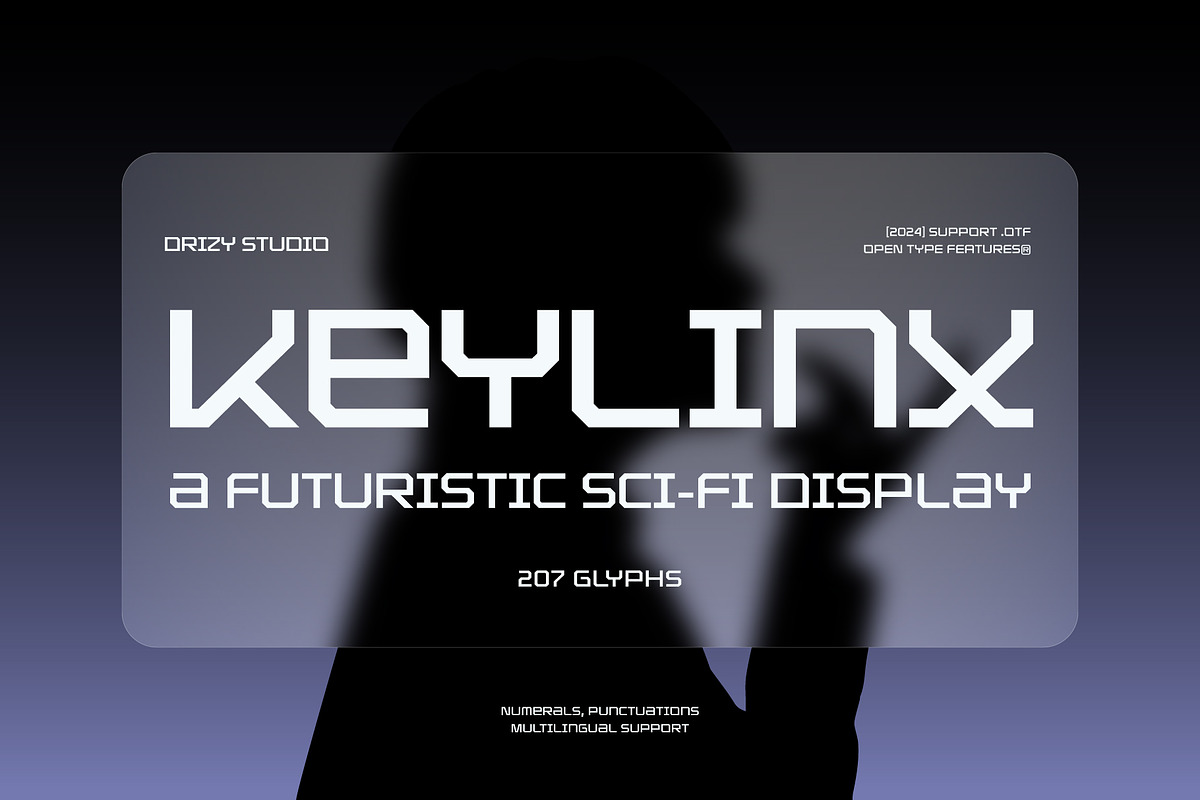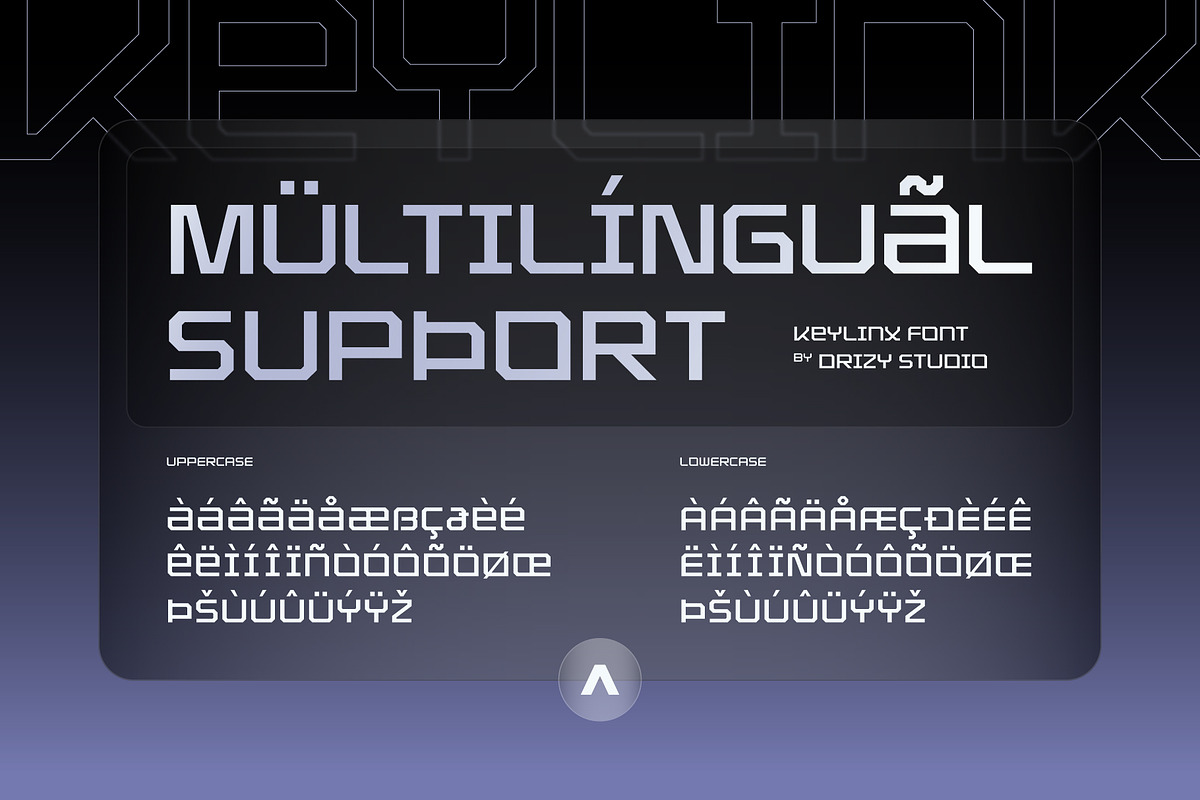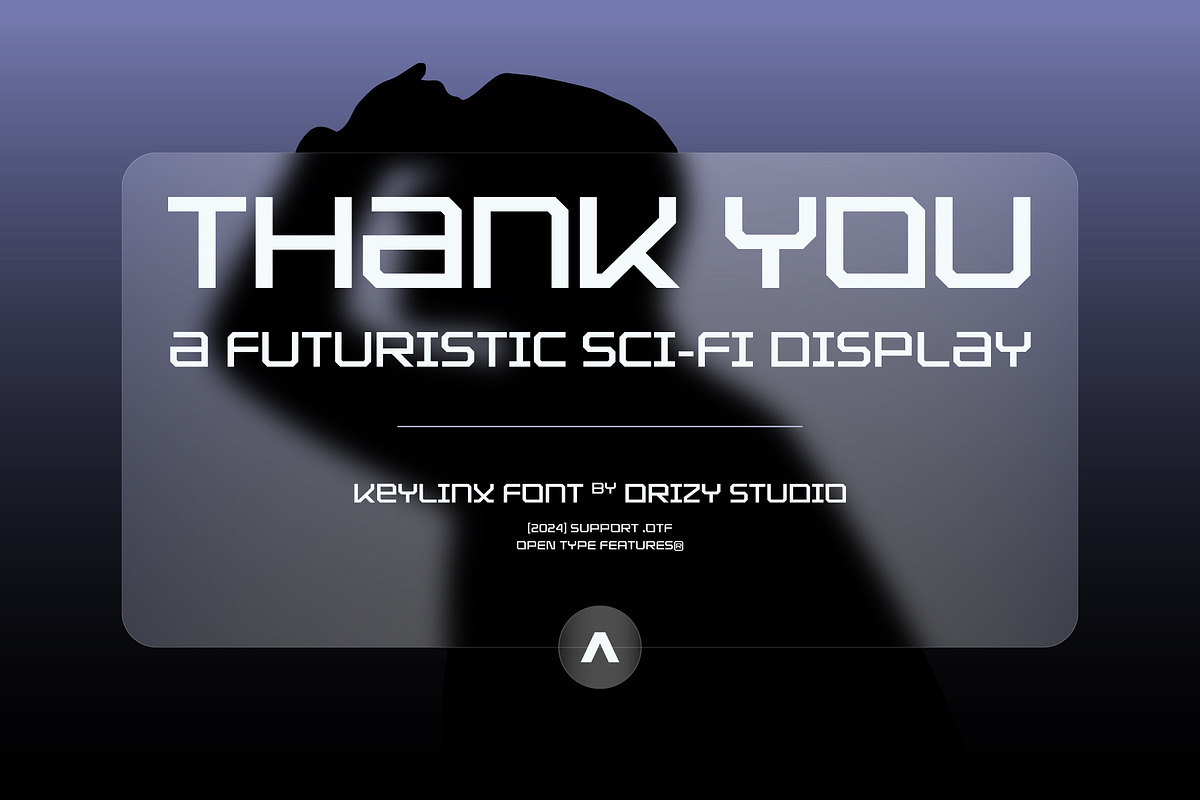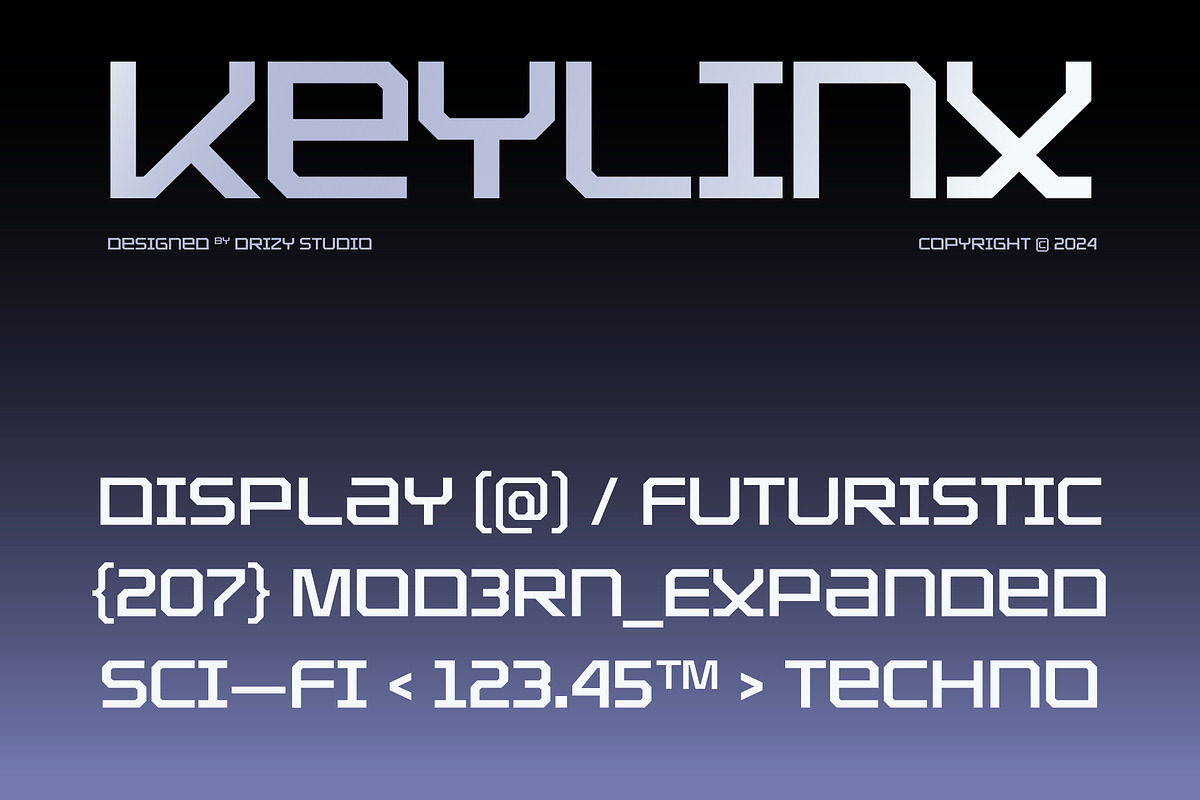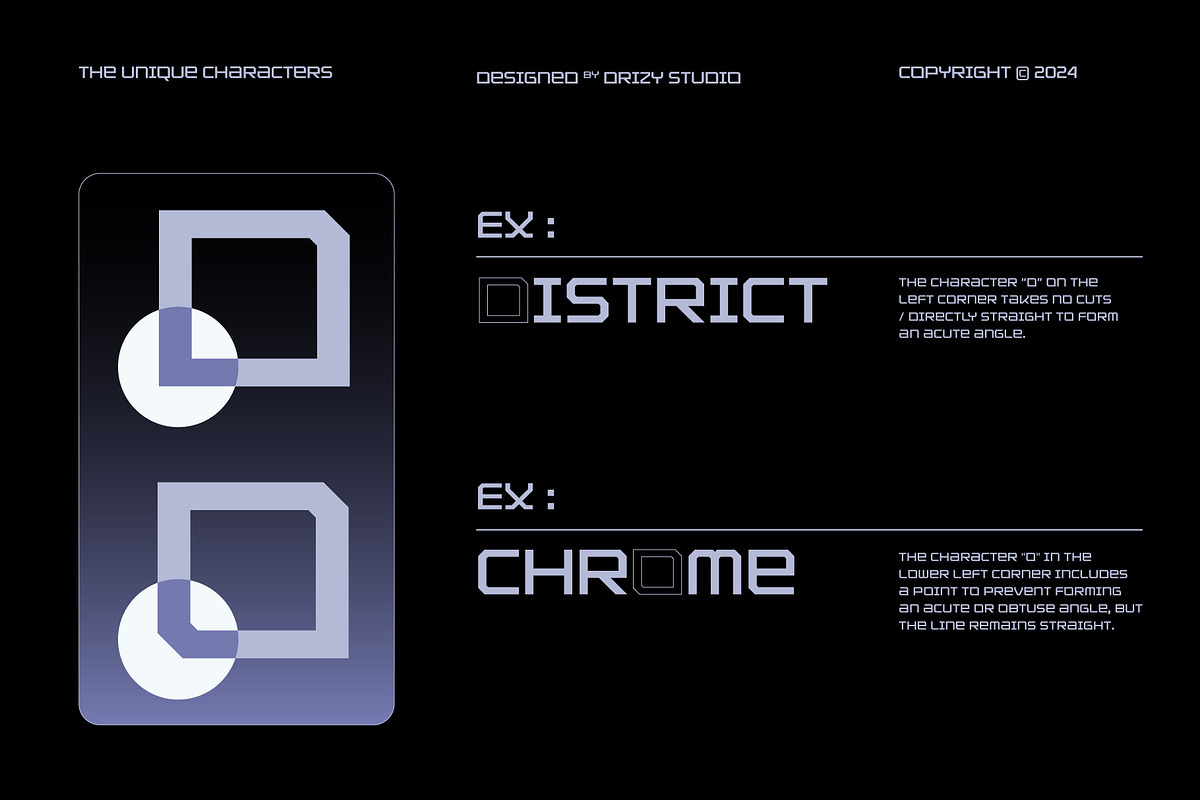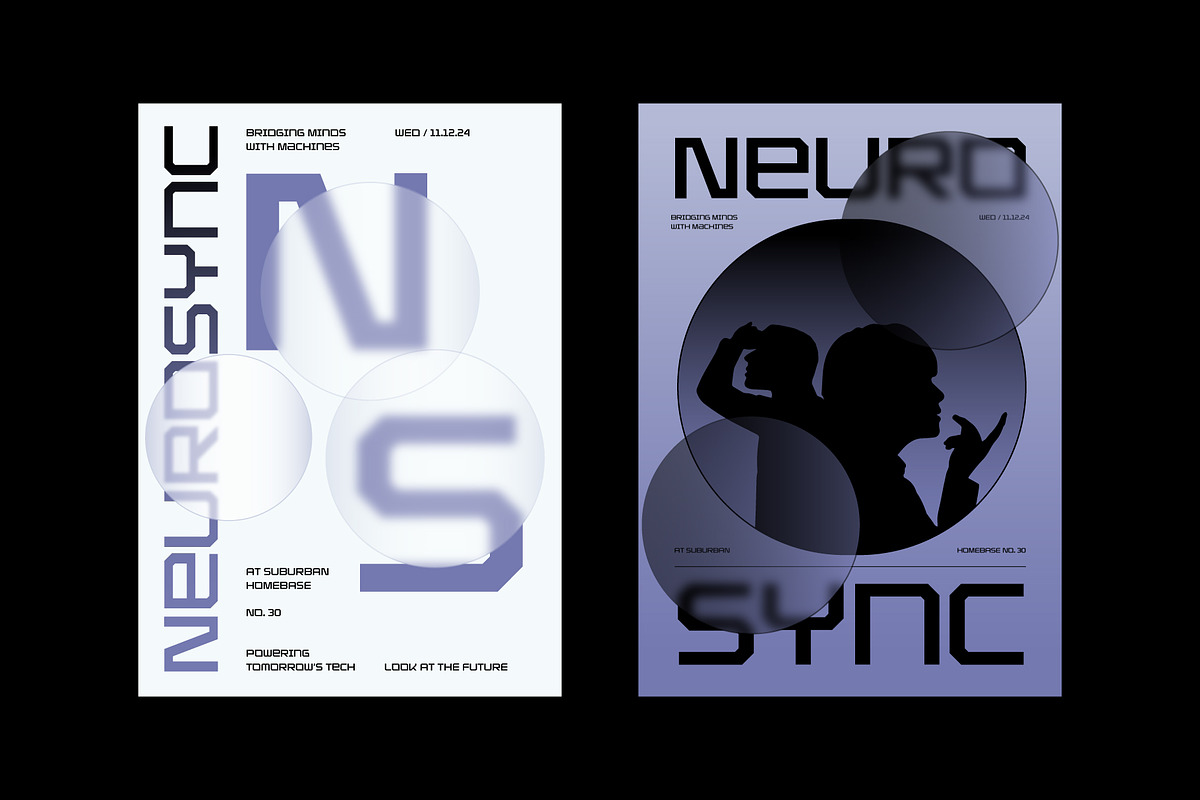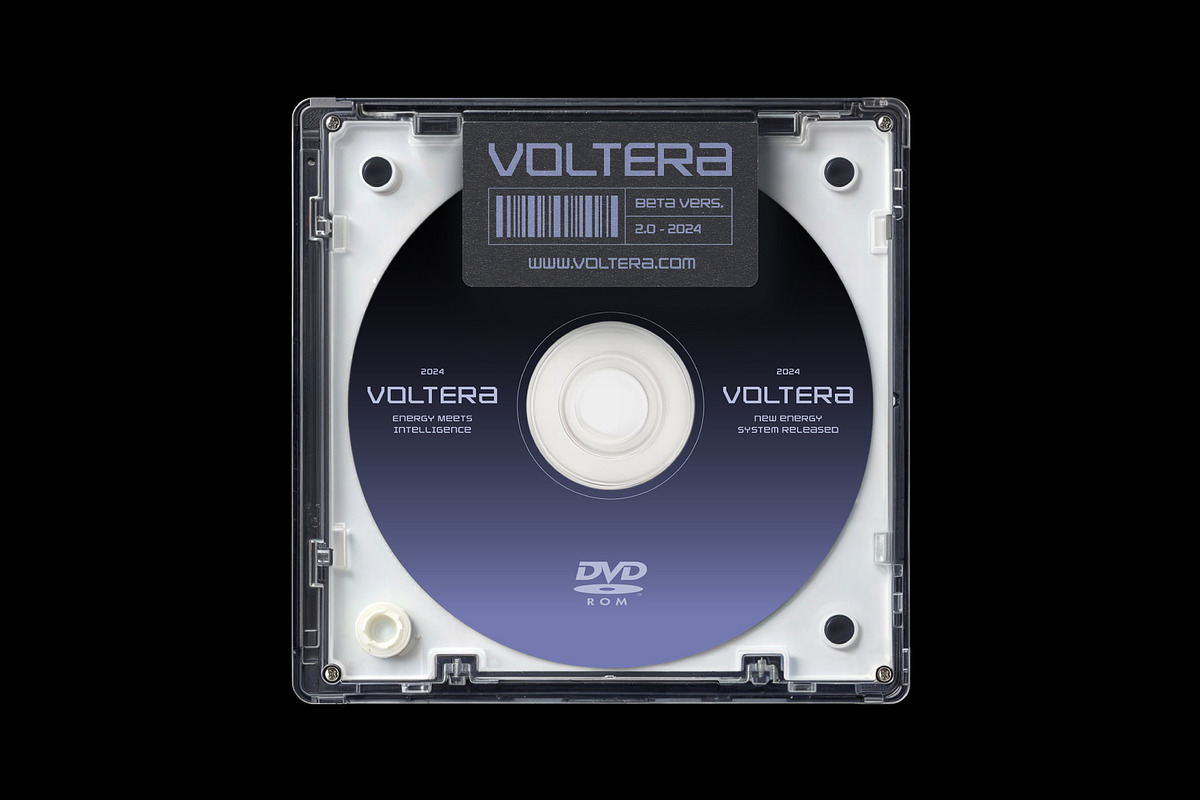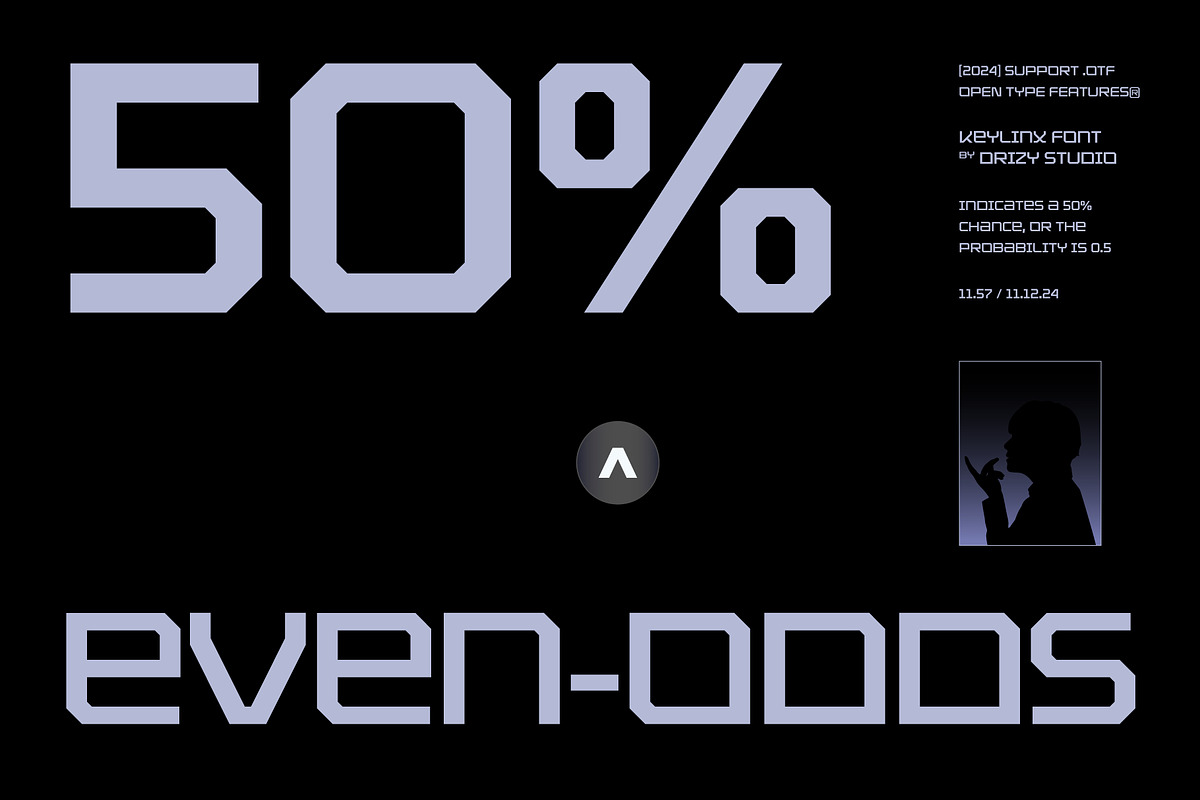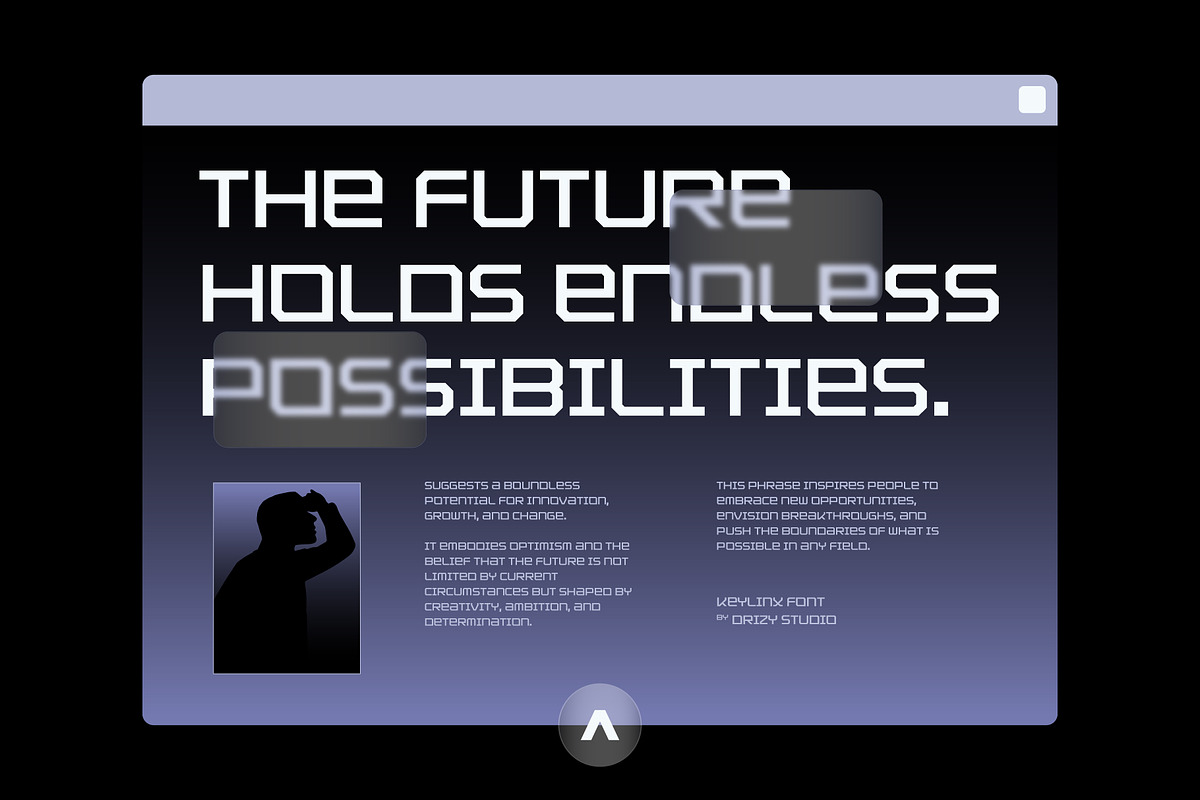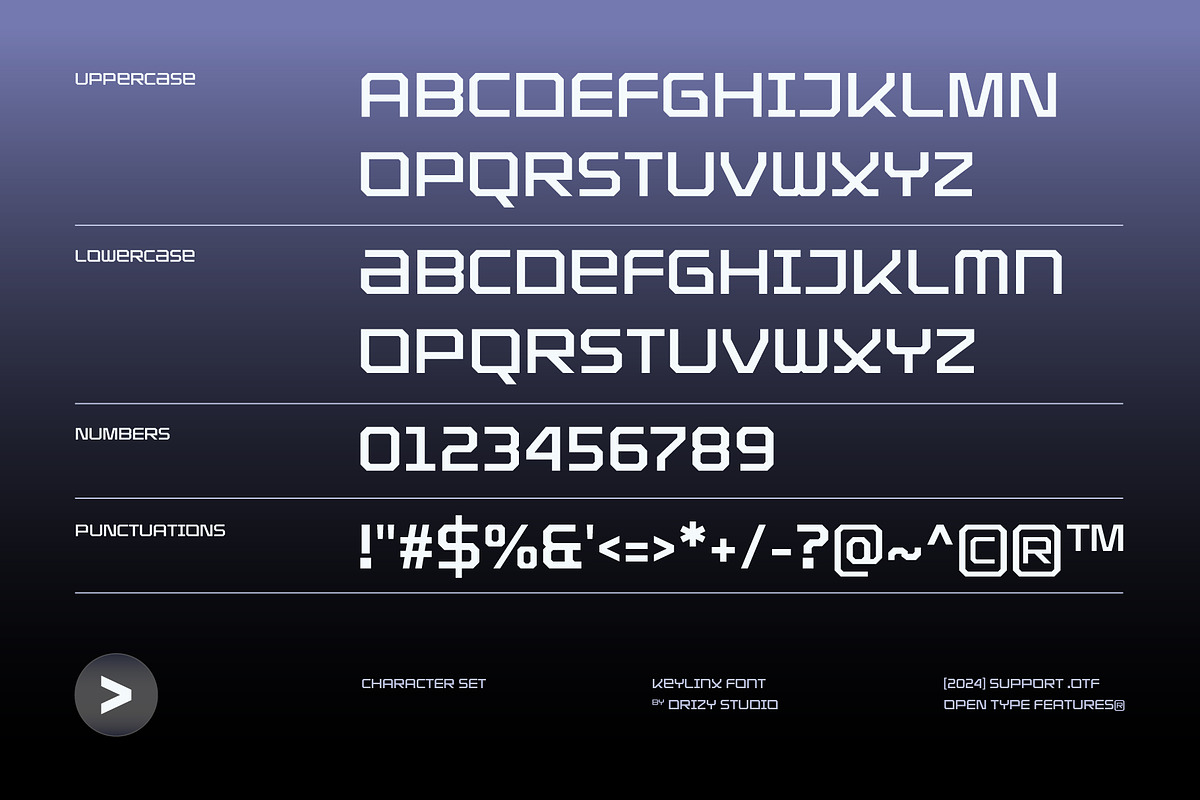
Keylinx – Futuristic SciFi Display
Keylinx – Futuristic SciFi Display Font
Keylinx is a sleek and sophisticated futuristic font crafted for Clean Modern. With it’s sharp edges and seamless curves, Keylinx brings a cutting-edge aesthetic perfect for UI/UX design, tech-inspired visual identity, and high-impact digital projects. Designed to captivate and communicate clarity, Keylinx combines functionality with style, making it an ideal choice for logos, app interfaces, and branding that demands a forward-thinking look. Elevate your design game with Keylinx where innovation meets elegance.
Keylinx features:
- Character Set (Uppercase & Lowercase)
- Punctuation & Numbers
Elevate and explore the design possibilities with this Clean Modern Font!